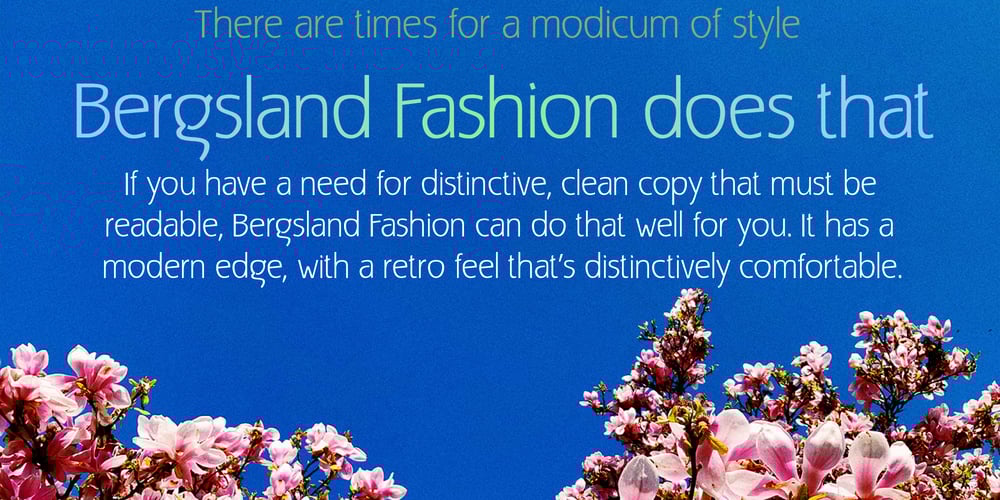
Bergsland Fashion Font Family was designed by David Bergsland and published by Hackberry Font Foundry. Bergsland Fashion contains 4 styles and family package options. This is a stylized sans serif font family that is very high-waisted and sleek. The stroke is only slightly modulated. The letterforms are higher, with a more open aperture, and sprinkled with breaks to add light and sparkle. This an attempt at a readable sans serif for text. It has many OpenType features and 465 characters per font: Caps, lower case, small caps, old style figures, numerators, denominators, accents characters and so on.